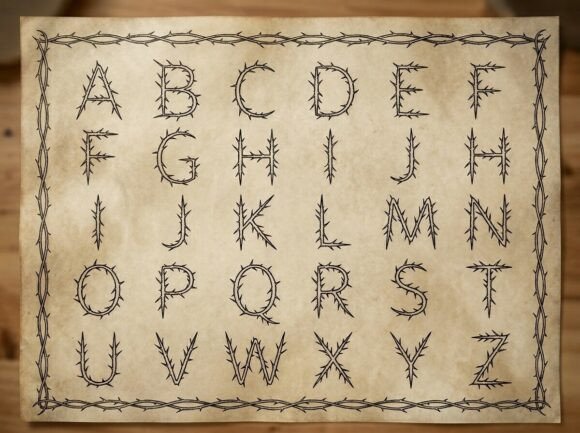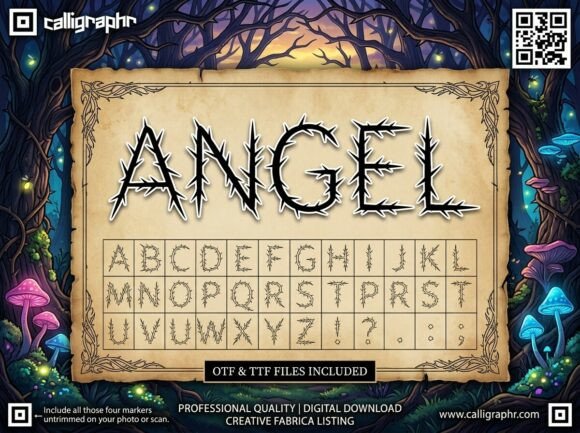
Unleashing the Dark Elegance of Angel Font
I still remember the design project that led me to discover Angel Font. I was working on a supernatural thriller book cover, and my client wanted a title that would evoke a sense of mystery and foreboding. As I scoured the internet for the perfect font, I stumbled upon Angel – a display font that seemed to embody the dark fantasy world I was trying to create. With its gothic elegance and sharp, dangerous edge, Angel Font instantly captured my attention.
A First Impression: What I Love About Angel Font
Here’s what makes Angel Font stand out:
- ✨ Meticulous construction: Each character is carefully crafted from tangled, sharp-edged vines and aggressive thorns, creating a rhythmic yet chaotic silhouette.
- ✅ High-contrast linework: The font’s skeletal structure and high-contrast linework evoke a sense of ancient curses and enchanted, briar-filled forests.
- ✨ Perfect for dark fantasy: Angel Font is an extraordinary choice for dark fantasy book titles, heavy metal branding, gothic event posters, and tattoo-inspired graphics.
While Angel Font is an incredible addition to any design project, there are a few things to keep in mind:
- ⚠️ Legibility at small sizes: Due to its intricate design, Angel Font may not be the best choice for body text or small font sizes.
- 🤔 Limited versatility: While Angel Font excels in dark fantasy and gothic contexts, it may not be suitable for more playful or minimalist designs.
The Story Behind Angel Font
According to the font’s designers, Angel Font was inspired by the dark, mystical world of fantasy and horror. The font’s intricate design and high-contrast linework were meant to evoke a sense of ancient curses and enchanted forests. Whether or not this story is true, one thing is certain – Angel Font is a masterpiece of dark fantasy typography.
| Font Name | Angel Font |
| What type of projects is Angel Font best suited for? | Angel Font is perfect for dark fantasy book titles, heavy metal branding, gothic event posters, and tattoo-inspired graphics. |
| Is Angel Font legible at small sizes? | Due to its intricate design, Angel Font may not be the best choice for body text or small font sizes. |